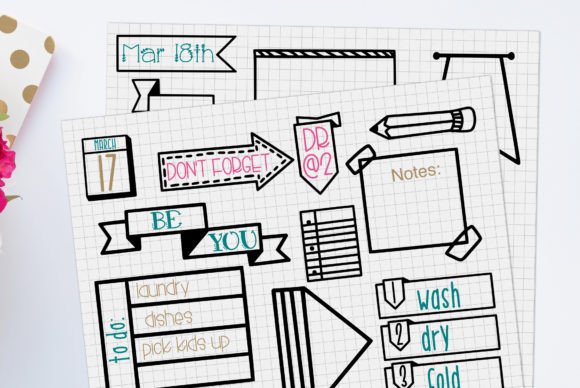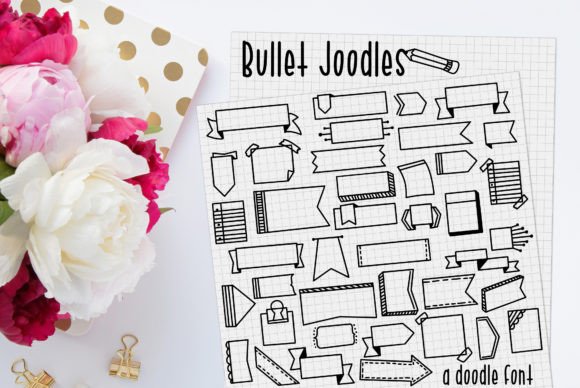
Meet Bullet Joodles: The Ultimate Doodle Font for Bullet Journaling Enthusiasts!
Are you a fan of bullet journaling? Do you love adding a personal touch to your planners, to-do lists, and scrapbooking pages? Look no further than Bullet Joodles, the ultimate doodle font designed specifically for bullet journaling enthusiasts! This charming font is packed with hand-drawn banners, arrows, and decorative elements that will make organizing fun and creative.
What is Bullet Joodles?
Bullet Joodles is a unique and playful font that brings a touch of personality to your notes, reminders, and lists. With its hand-drawn elements, this font is perfect for those who love to doodle and add a creative twist to their journaling. The font is designed to be versatile, making it easy to use for a variety of purposes, from planners and to-do lists to scrapbooking and decorative art.
Key Features of Bullet Joodles
- Hand-drawn elements: Bullet Joodles features a range of hand-drawn banners, arrows, and decorative elements that add a personal touch to your journaling.
- Playful lines: The font’s playful lines and curves bring a sense of fun and creativity to your notes and lists.
- Versatile: Bullet Joodles is designed to be versatile, making it easy to use for a variety of purposes, from planners and to-do lists to scrapbooking and decorative art.
How to Use Bullet Joodles
- Bullet journaling: Use Bullet Joodles to add a personal touch to your bullet journal pages, including headers, banners, and decorative elements.
- Scrapbooking: Add a touch of personality to your scrapbooking pages with Bullet Joodles’ hand-drawn elements and playful lines.
- Planners and to-do lists: Use Bullet Joodles to make your planners and to-do lists more visually appealing and fun to use.
- Decorative art: Experiment with Bullet Joodles to create beautiful and unique decorative art pieces.
Benefits of Using Bullet Joodles
So why should you use Bullet Joodles? Here are just a few benefits:
- Adds personality: Bullet Joodles brings a touch of personality to your journaling, making it more fun and engaging.
- Increases creativity: The font’s hand-drawn elements and playful lines inspire creativity and self-expression.
- Improves organization: With Bullet Joodles, you can create visually appealing and organized planners, to-do lists, and journals.
- Perfect for designers and crafters: Bullet Joodles is a great tool for designers and crafters looking to add a unique touch to their work.
Tips and Tricks for Getting the Most Out of Bullet Joodles
Here are a few tips and tricks to help you get the most out of Bullet Joodles:
- Experiment with different colors: Try using different colors to add an extra pop of personality to your journaling.
- Mix and match elements: Combine different Bullet Joodles elements to create unique and interesting designs.
- Add your own twist: Don’t be afraid to add your own personal touch to your journaling with Bullet Joodles.
- Practice makes perfect: The more you use Bullet Joodles, the more comfortable you’ll become with its features and capabilities.
| Font Name | Bullet Joodles Font |
| Author | kitaleigh |
In conclusion, Bullet Joodles is the ultimate doodle font for bullet journaling enthusiasts. With its hand-drawn elements, playful lines, and versatile design, this font is perfect for adding a personal touch to your planners, to-do lists, scrapbooking pages, and more. Whether you’re a designer, crafter, or simply a fan of bullet journaling, Bullet Joodles is a must-have tool for turning mundane tasks into a visual delight. So why wait? Get ready to doodle your way to productivity with Bullet Joodles!